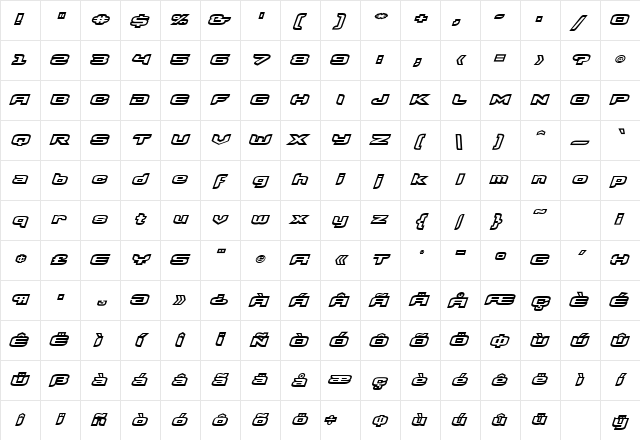
Megahertz Regular
Megahertz Family
Megahertz Regular
Complete Megahertz Regular glyph index. Displaying only characters natively supported by Megahertz Regular font.
Design Context for Megahertz
Megahertz is a composed and adaptable typeface that performs quietly and consistently across a wide range of design contexts.